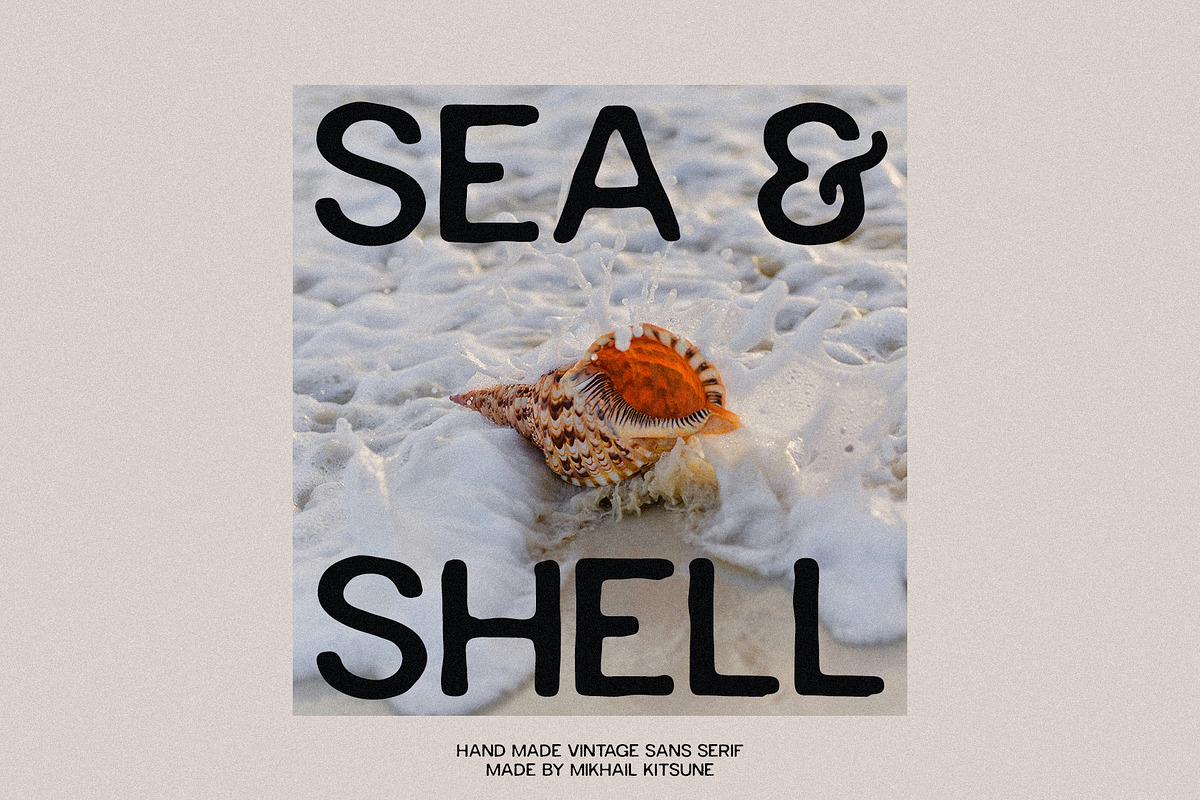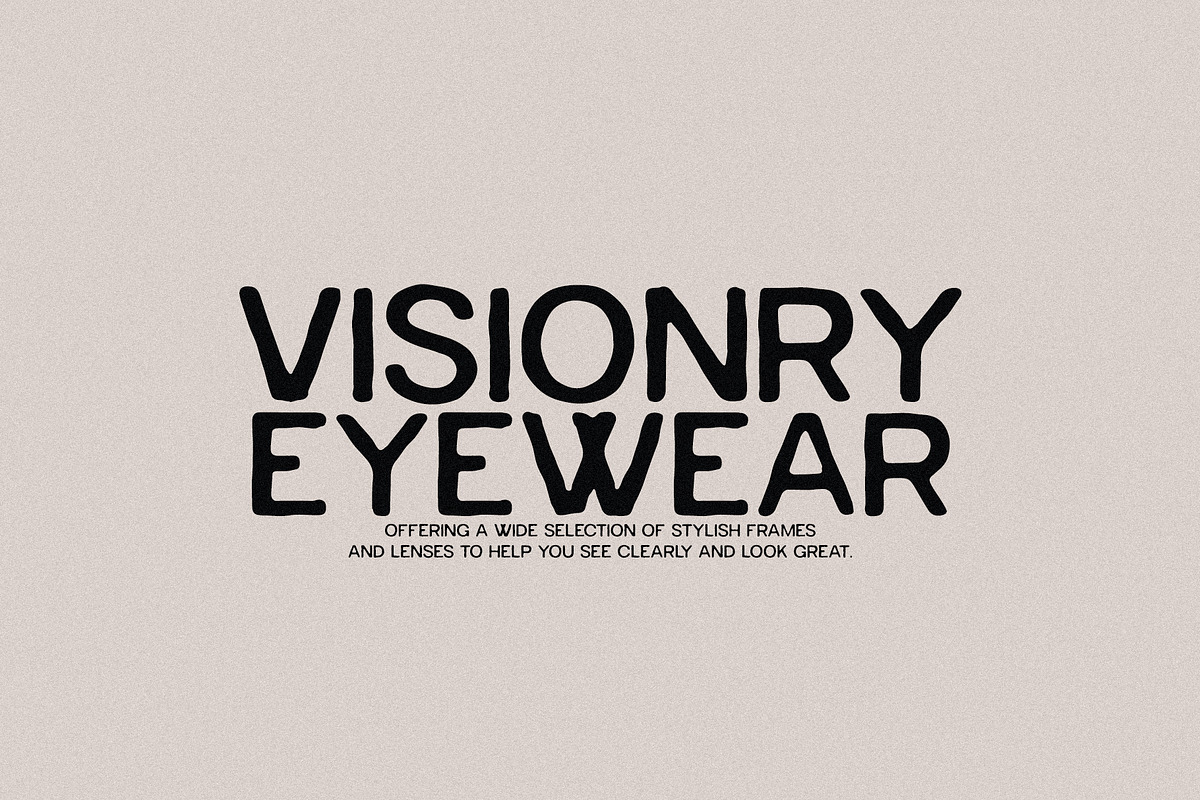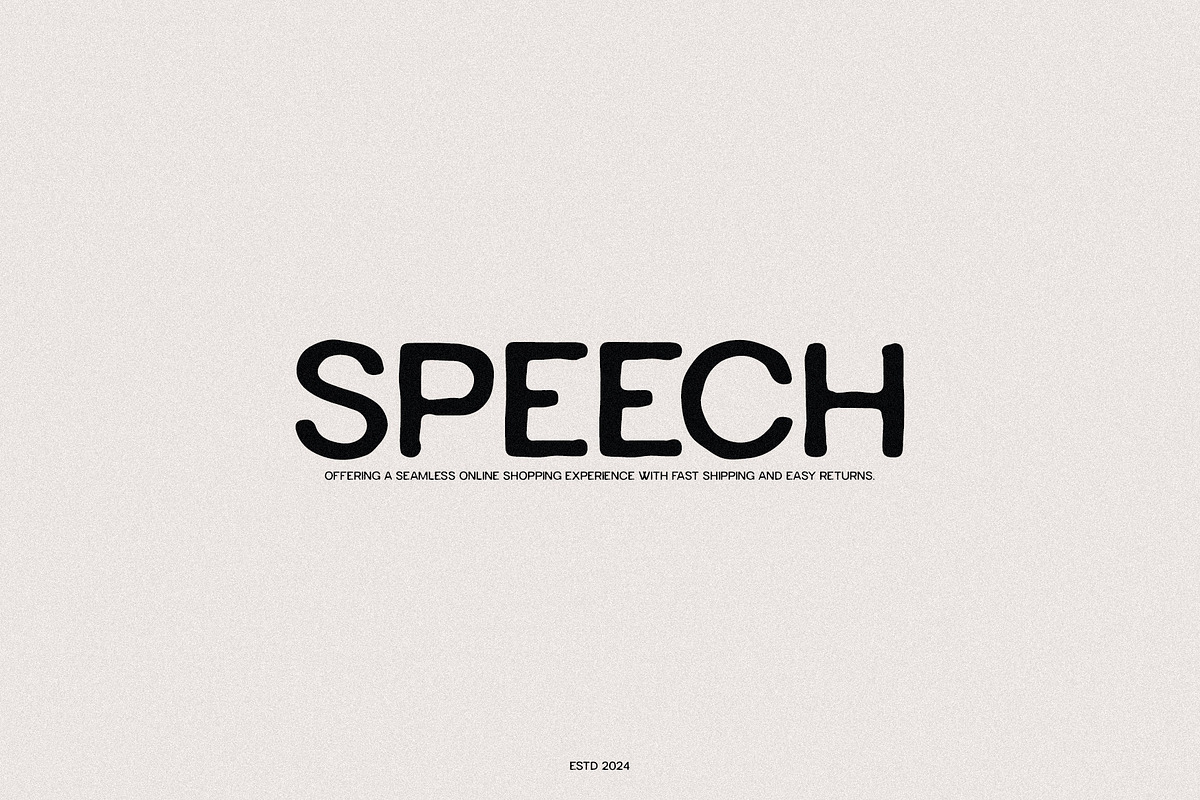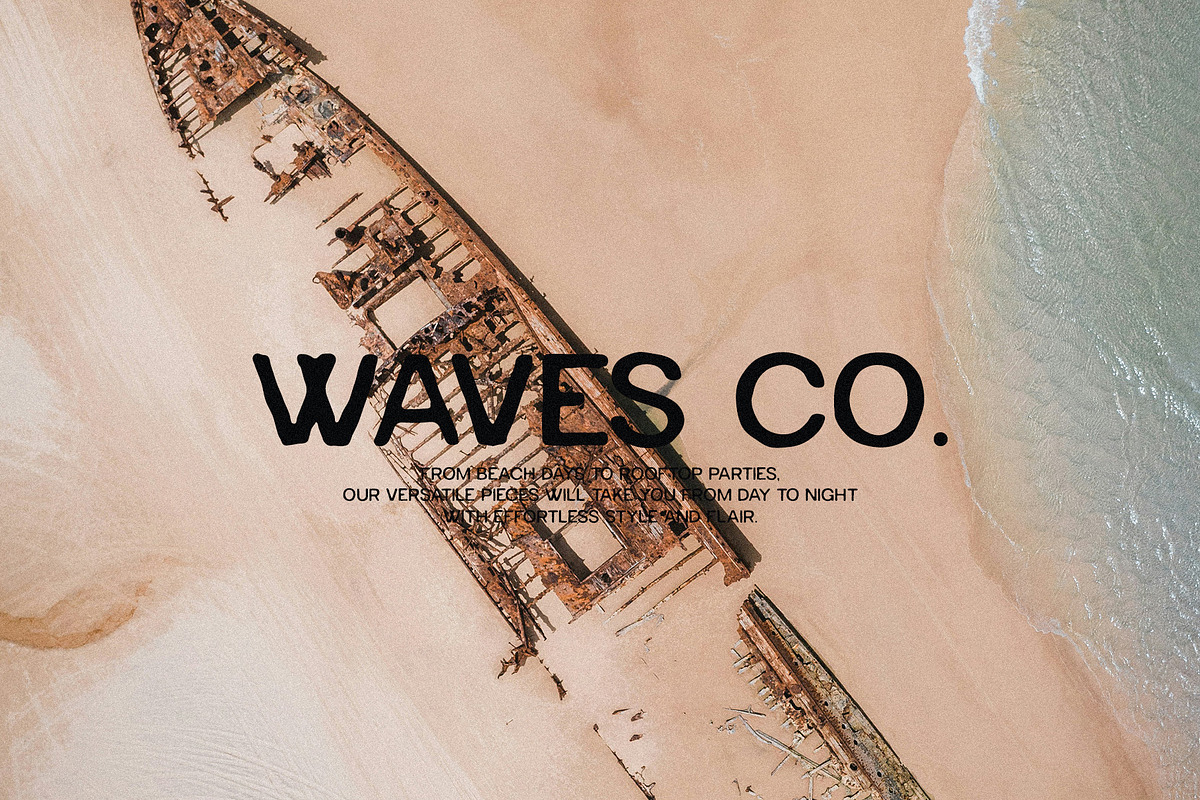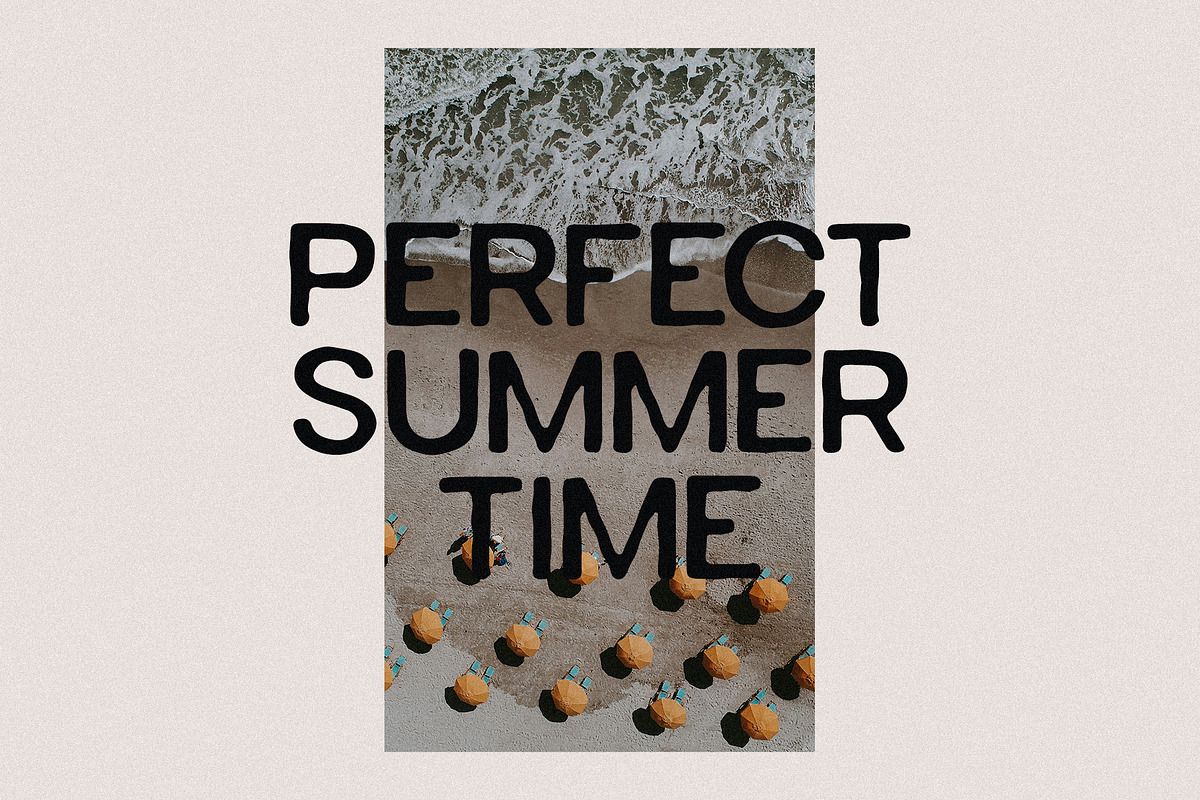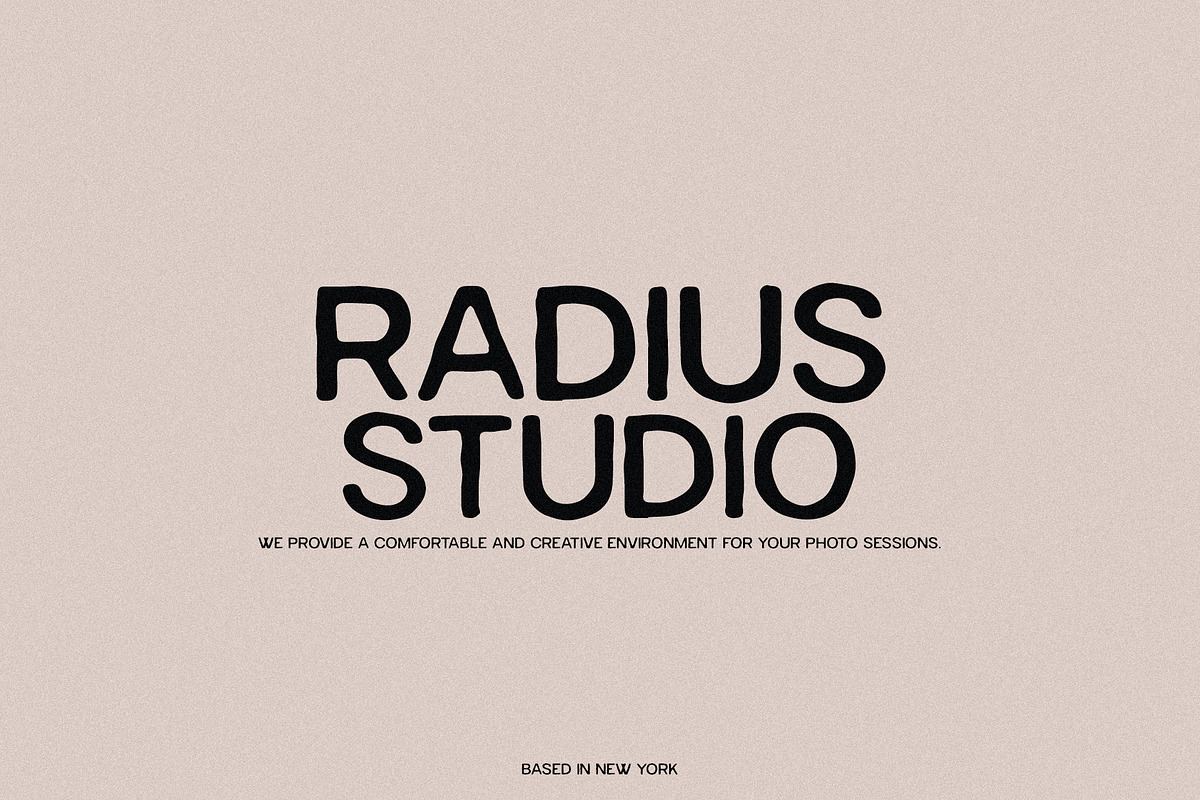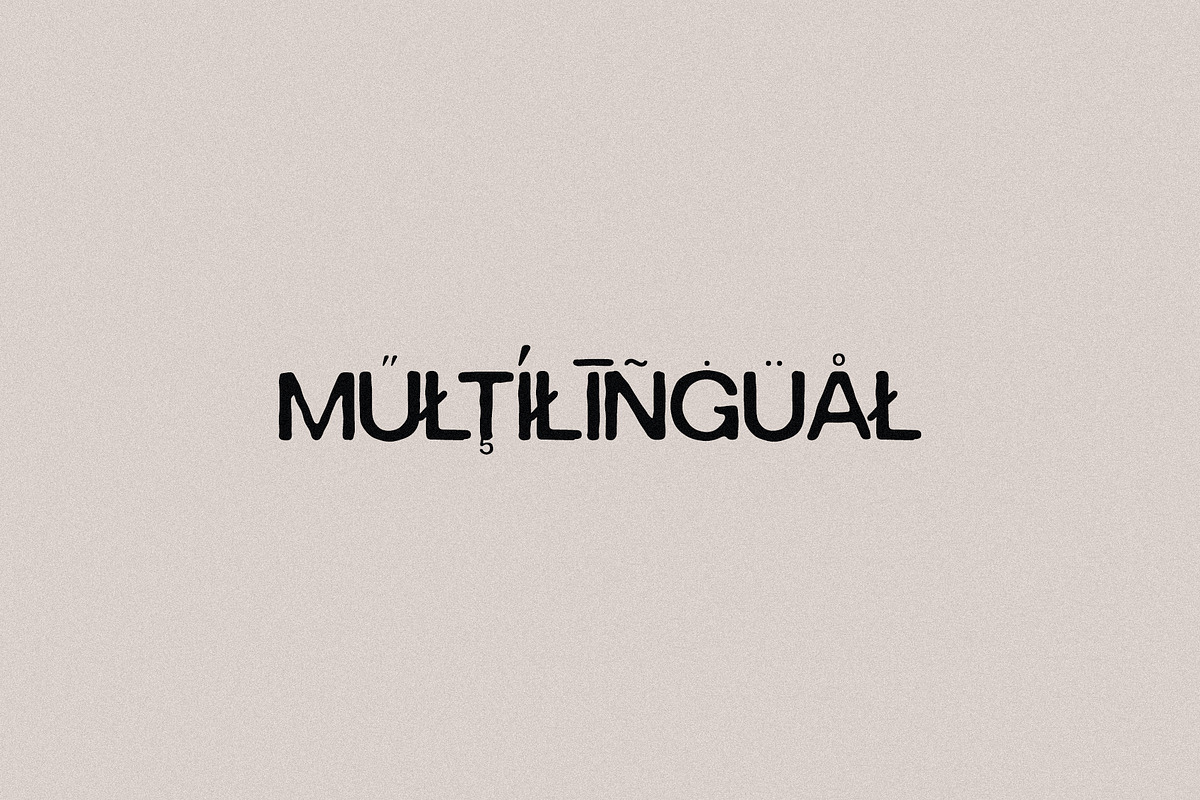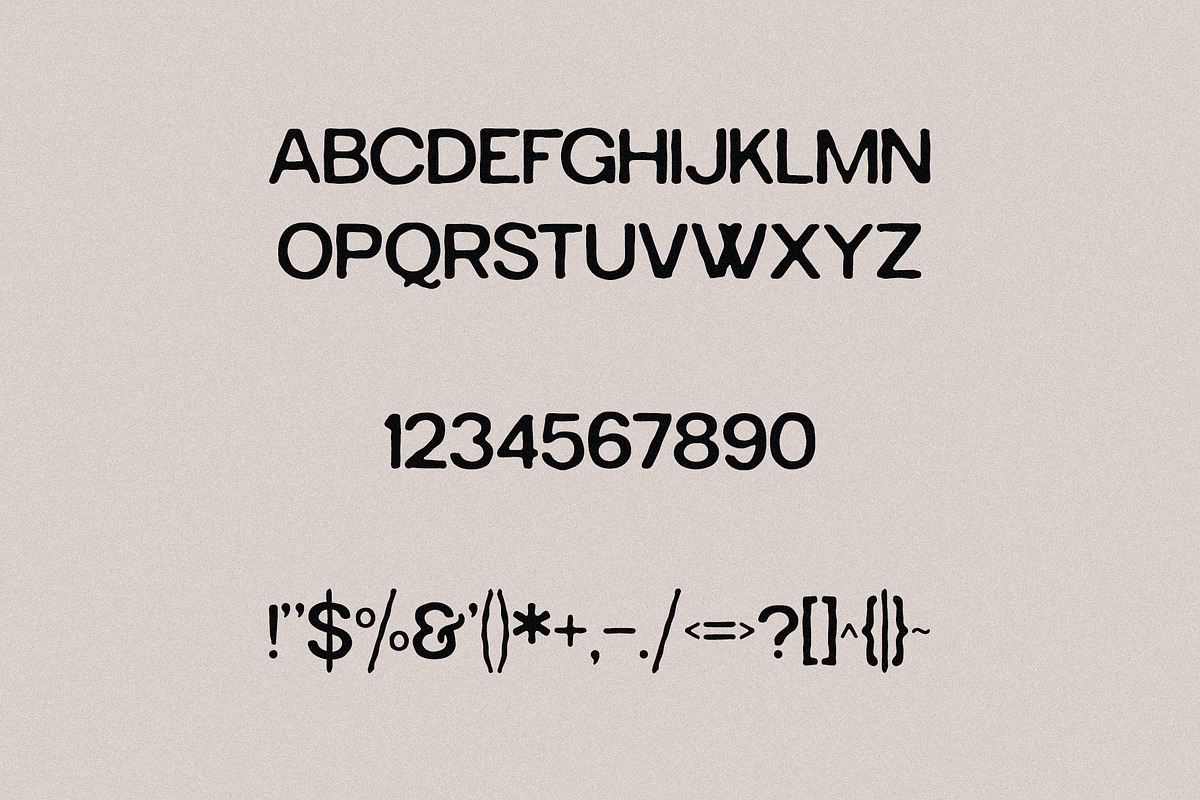
Sea & Shell - Vintage Sans Serif
Sea & Shell is a vintage-inspired sans serif font that exudes a classic and timeless aesthetic. With its clean lines and elegant design, this font is perfect for adding a touch of sophistication to any project. Whether you're designing a logo, website, or print materials, Sea & Shell is sure to make a statement.